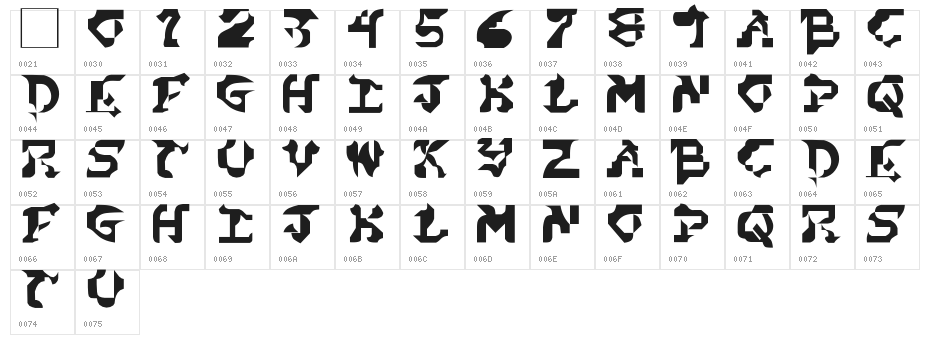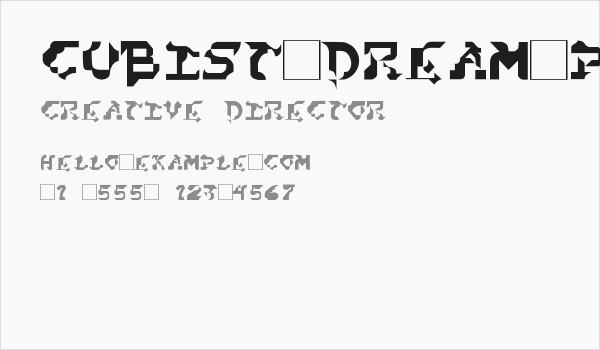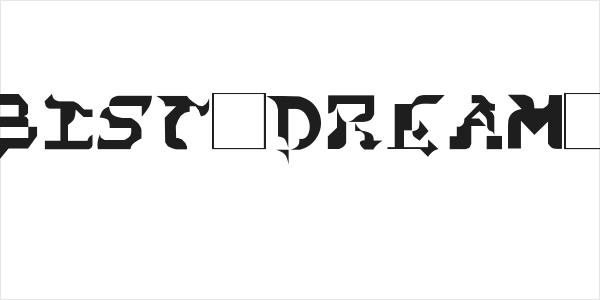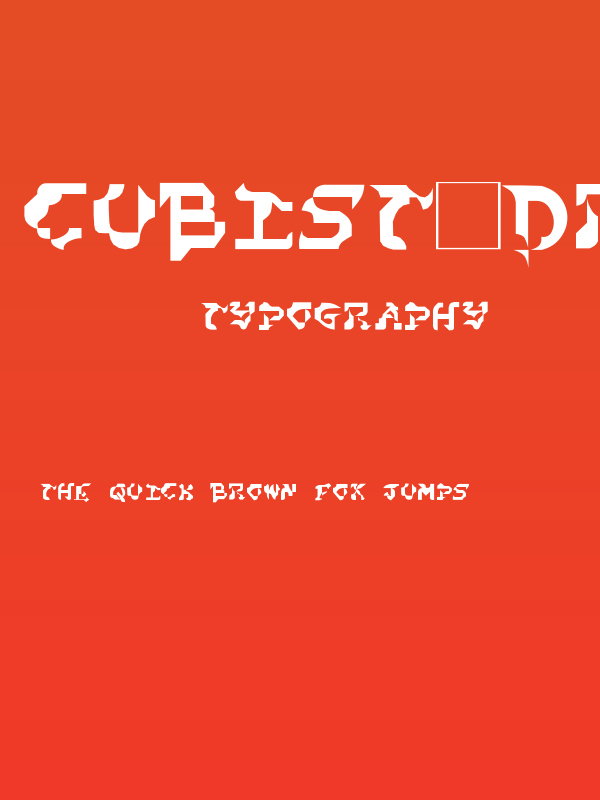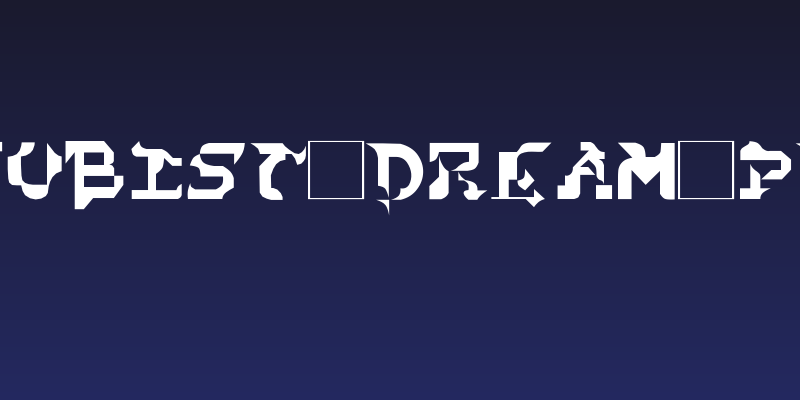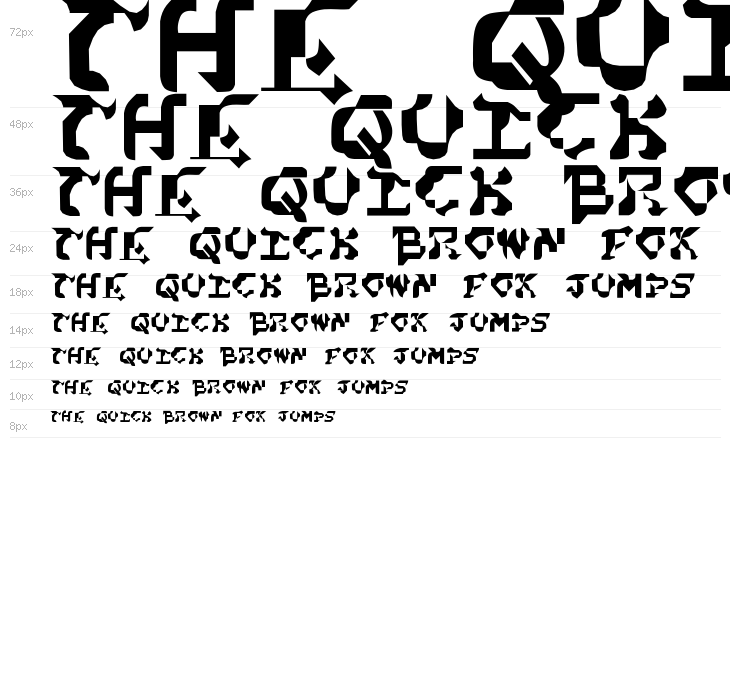
Cubist-Dream-PD Font
Cubist-Dream-PD Description
This font features a highly geometric and abstract design, reminiscent of cubist art. Each character is constructed with sharp angles and straight lines, creating a sense of modernity and innovation. The uppercase and lowercase letters maintain a consistent style, with a focus on symmetry and balance. The numbers and special characters are designed to match the overall aesthetic, ensuring a cohesive look across all elements. This font is ideal for projects that require a bold and artistic statement, offering a unique visual appeal that stands out.
| Proposed Projects | Ideal for modern art posters, abstract branding, innovative product packaging, and creative digital media. |